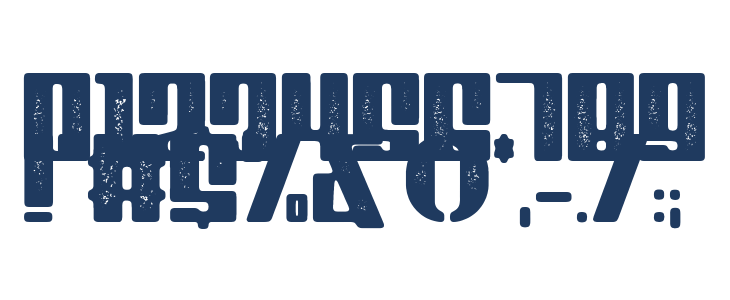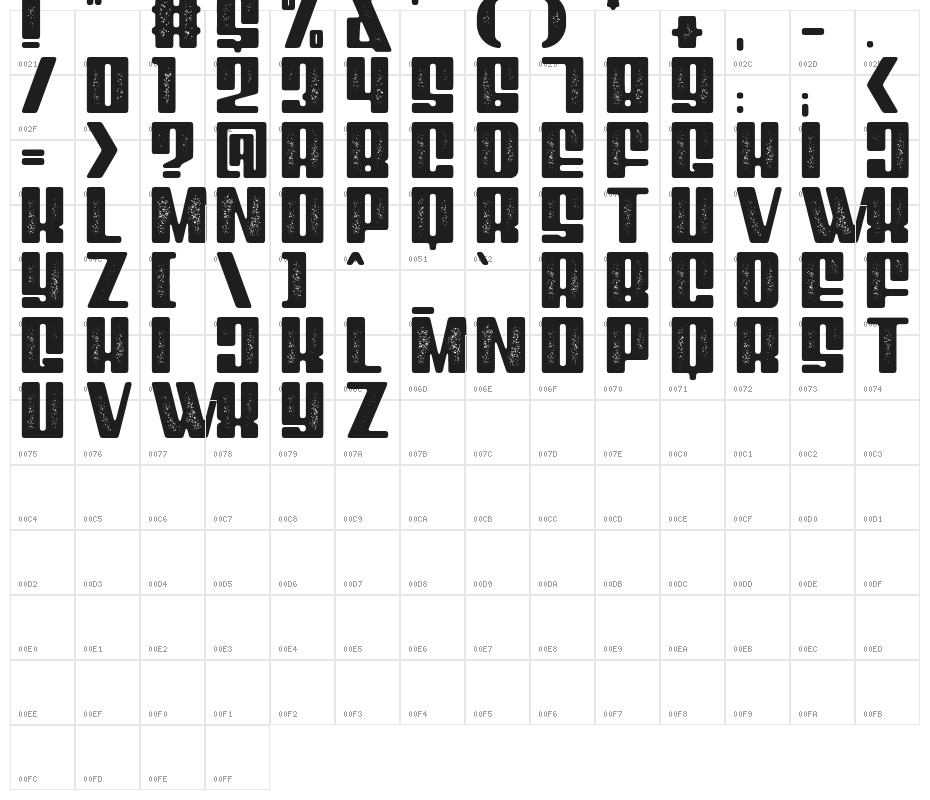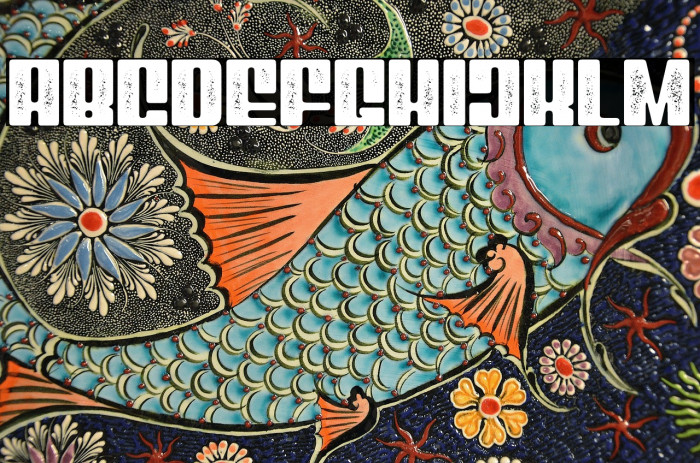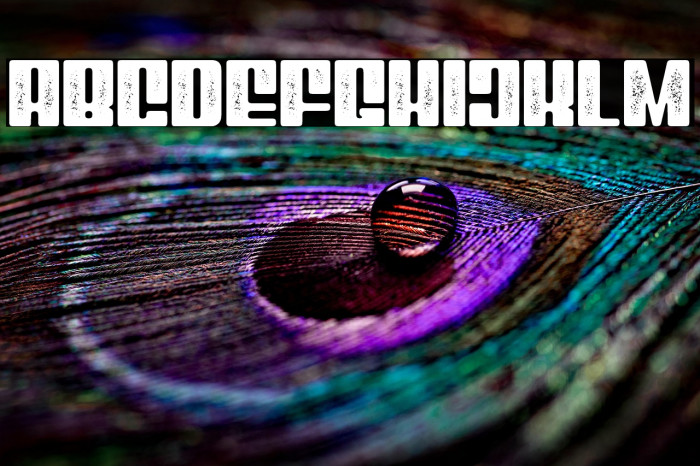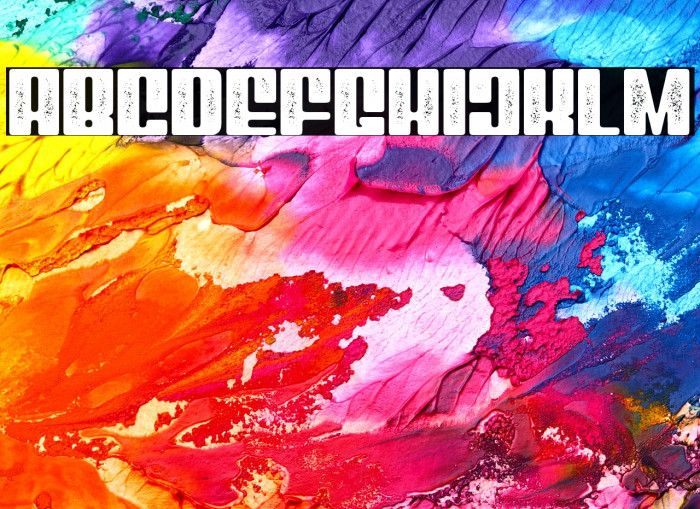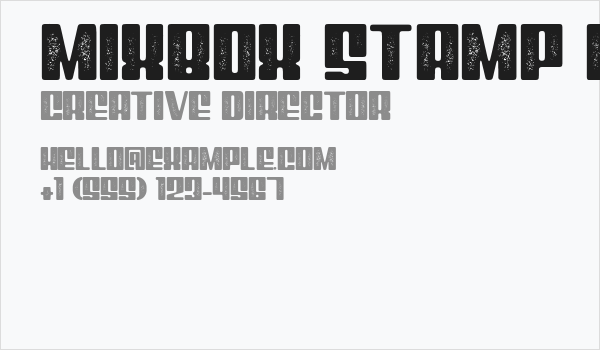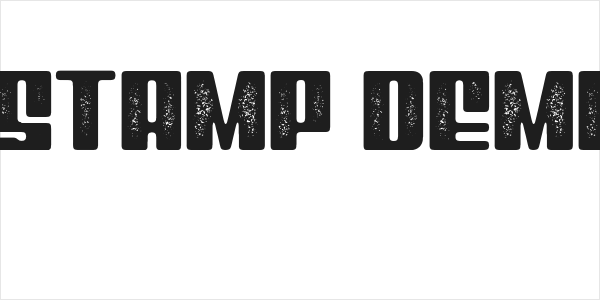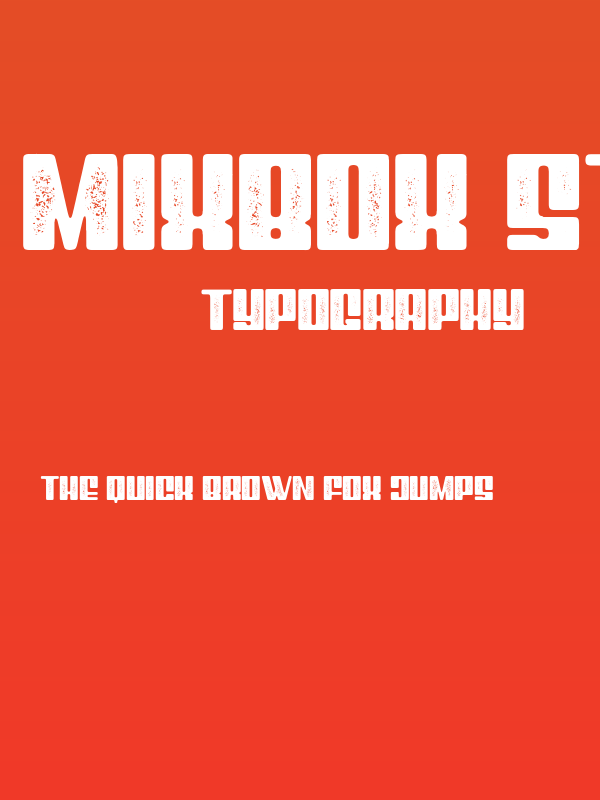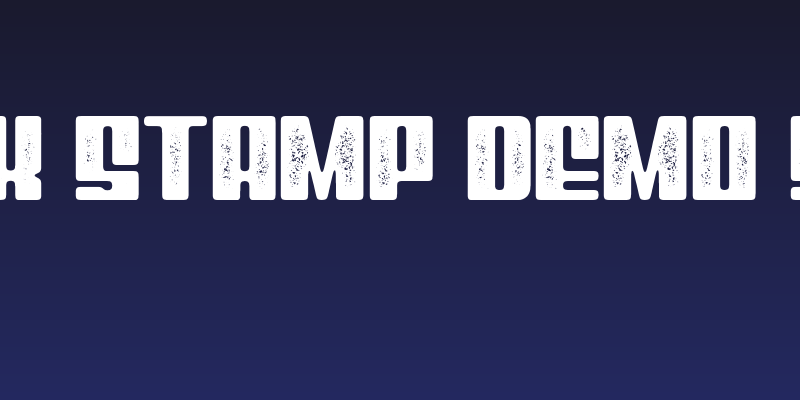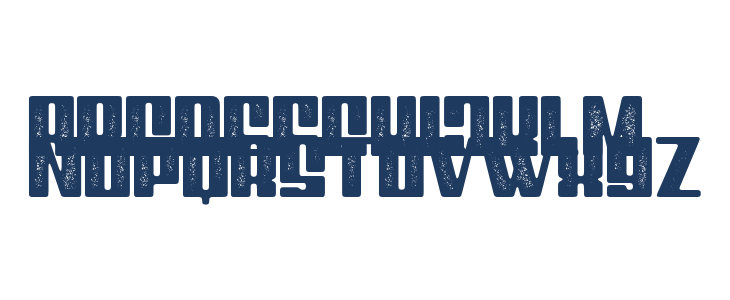
Mixbox Stamp Demo Stamp Font
Mixbox Stamp Demo Stamp Description
This font features a bold, distressed style that mimics the appearance of a rubber stamp. The characters are blocky and robust, with a textured, worn look that adds a vintage, industrial feel. The uppercase and lowercase letters maintain a consistent width, contributing to a uniform appearance. The numerals and special characters follow the same design, ensuring cohesion across all elements. This font's unique style is characterized by its rough edges and irregularities, giving it a handcrafted, authentic appearance. The overall design is eye-catching and suitable for projects that require a strong, impactful visual presence.
| Proposed Projects | Ideal for branding, posters, packaging, and any design requiring a rugged, vintage aesthetic. |